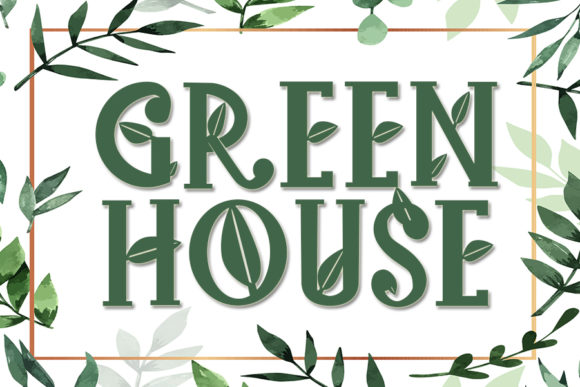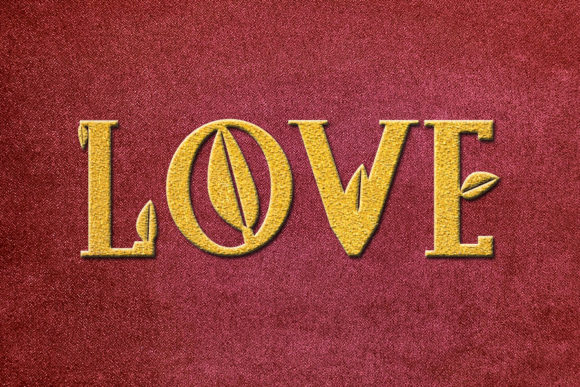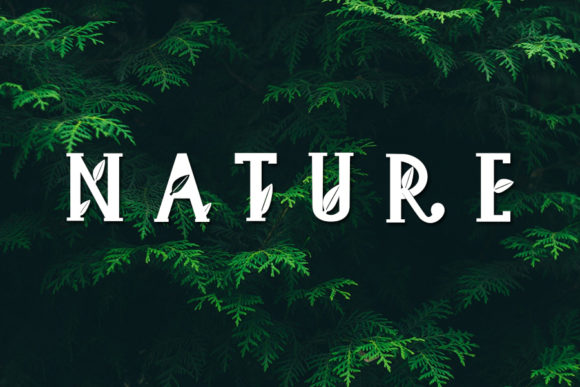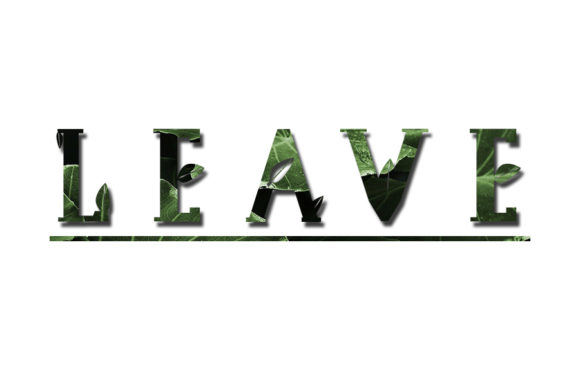
Green House Font: A Unique Decorative Font for Botanical Branding
About the Green House Font
Presenting Green House Font, a unique and stylish typeface that will make your work stand out. Create gorgeous and timeless designs with Green House, an interesting and unique decorative font.
Fall in love with its incredibly stylish look and use it for logos, quotes, invitations, business cards, power point presentations, and more!
Green House’s decorative style is ideal for headlines, short text blocks on branding materials, and projects requiring a touch of vintage charm. It excels in logos, invitations, and short quotes where its unique character can shine. However, its intricate details make it unsuitable for body text or UI elements where readability is paramount. Avoid using it in lengthy paragraphs or small sizes.
Its personality is best described as elegant yet playful; a sophisticated whimsy. This makes it perfect for brands aiming for a balance of classic appeal and a modern, slightly quirky touch. Think boutique hotels, artisanal food brands, or vintage-inspired clothing lines.
Pairing Green House with a clean sans-serif like Open Sans for body text provides excellent contrast and readability. For a more traditional feel, consider a classic serif like Garamond. If a more playful aesthetic is desired, a handwritten script font could complement its decorative nature.
Green House Font Usage Examples
Green House Font Example